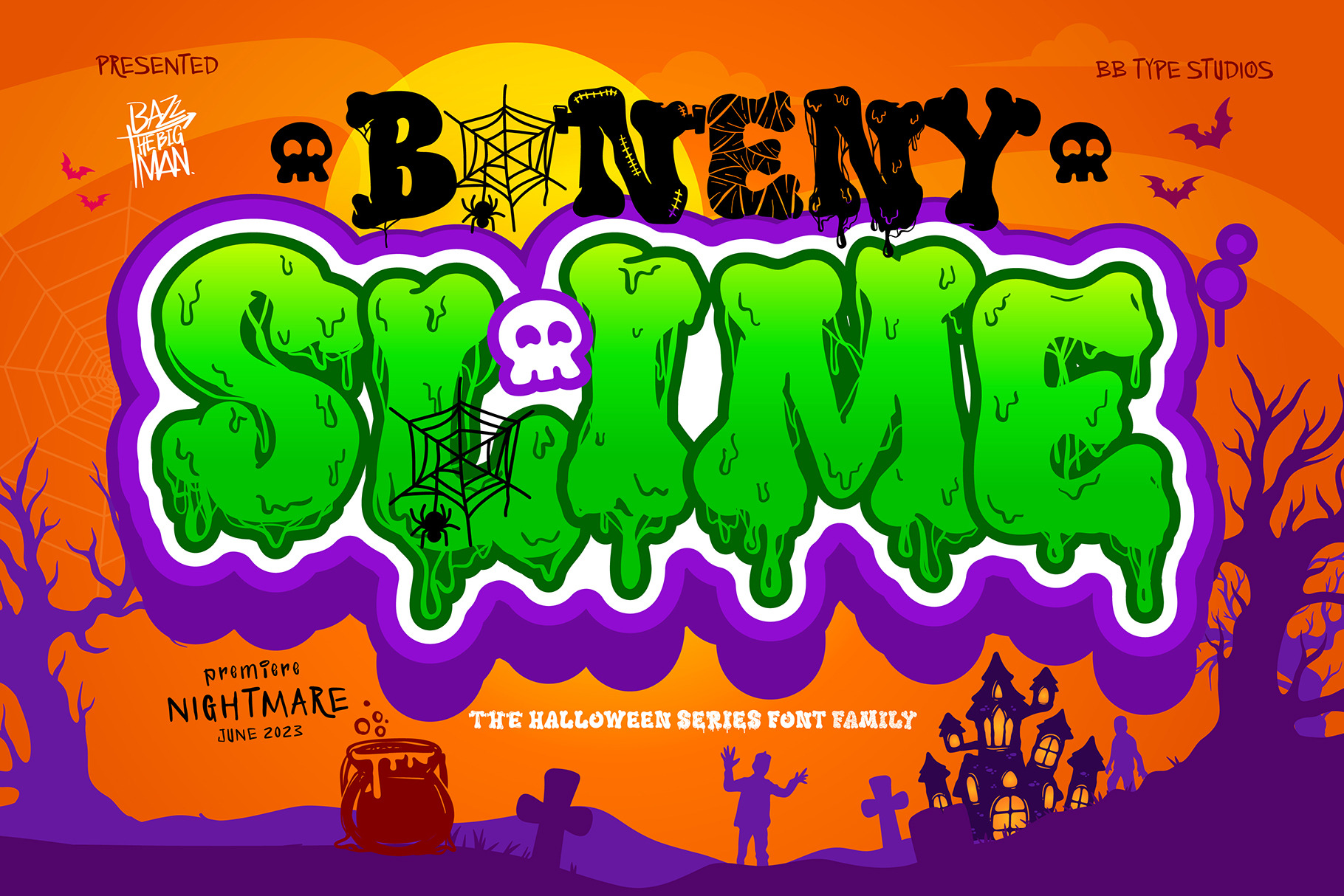
Boneny Font
Boneny is a fun and uniquely shaped decorative font. It is ideal for Halloween designs or October parties. Add it confidently to your favorite creations and let yourself be amazed by the outcome generated.